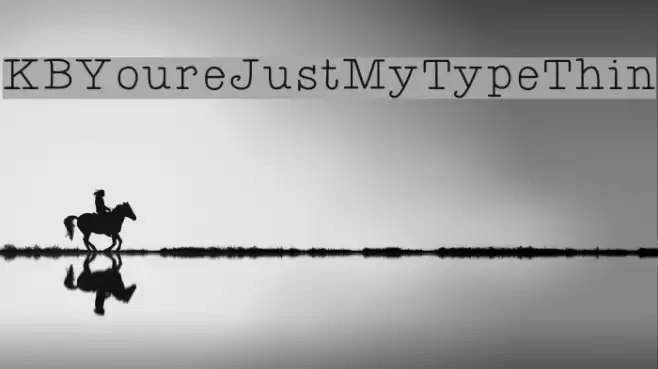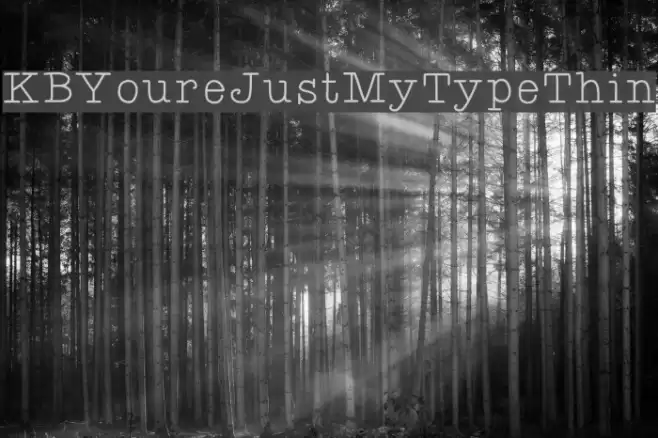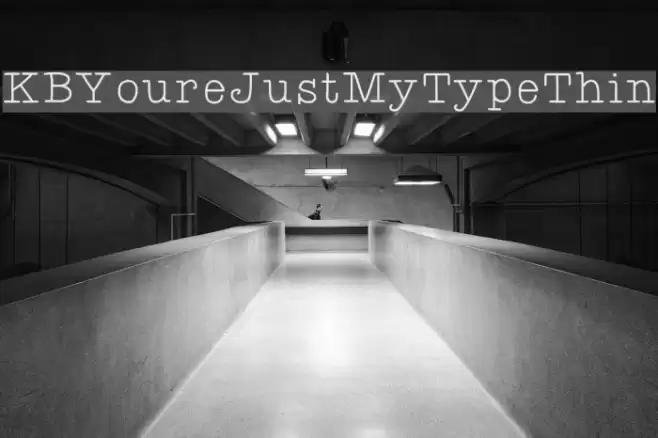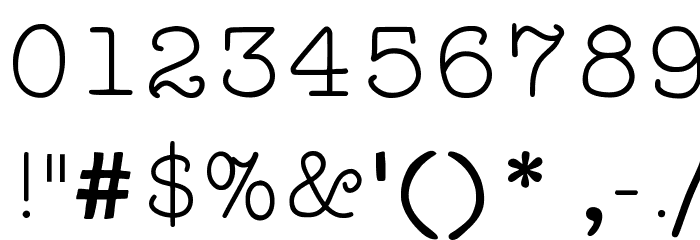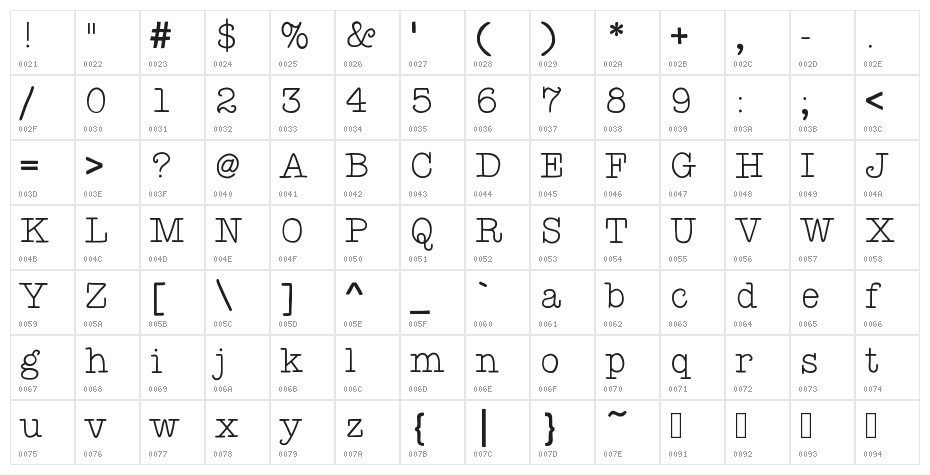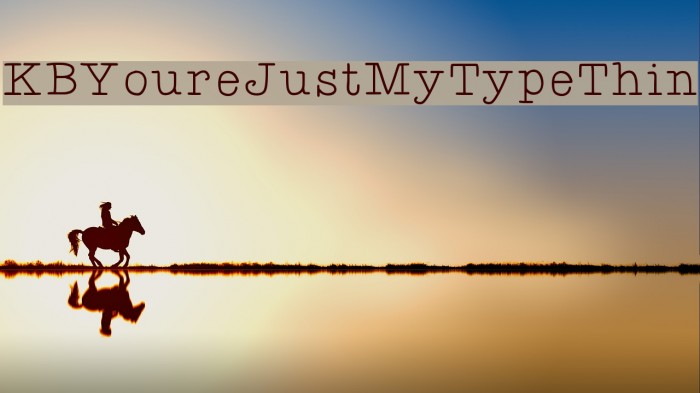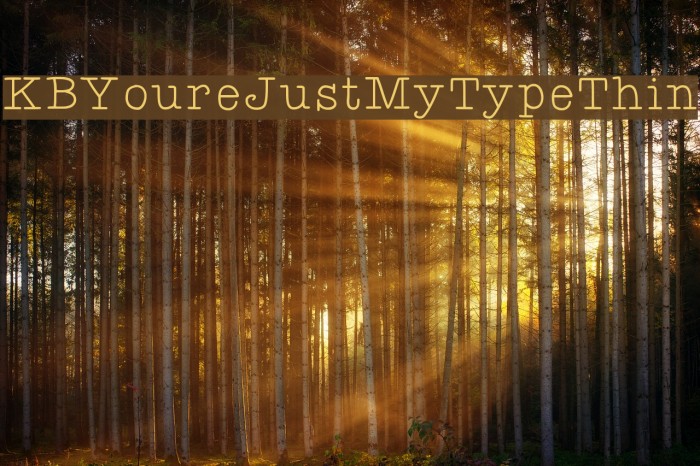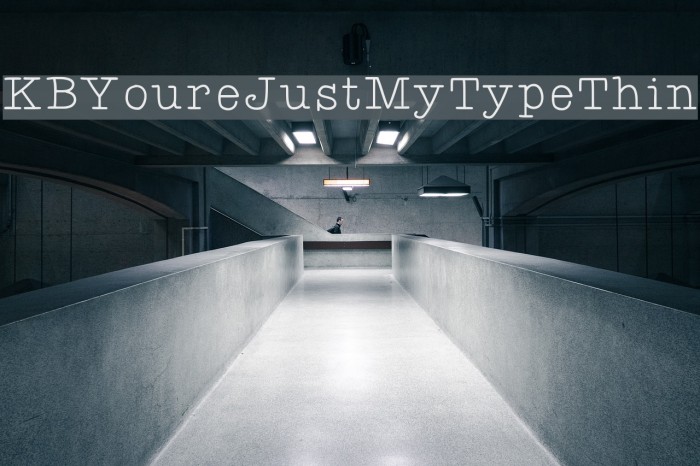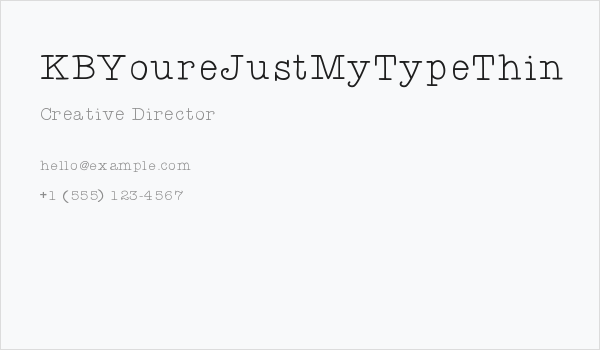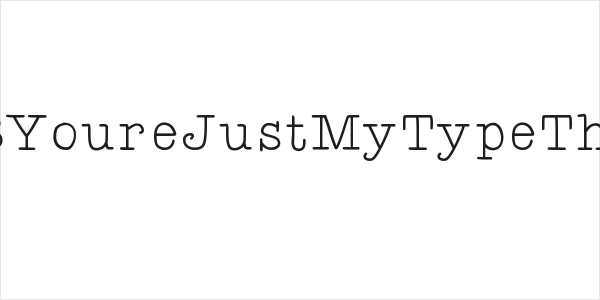
KBYoureJustMyTypeThin Font
KBYoureJustMyTypeThin Description
This font features a clean, monospaced design with a modern aesthetic. Each character is evenly spaced, providing a uniform appearance that enhances readability. The strokes are thin and consistent, giving the font a light and airy feel. The uppercase and lowercase letters maintain a balanced proportion, while the numerals and special characters are clearly defined, making them suitable for various applications. The overall style is minimalistic yet functional, ideal for projects that require clarity and precision.
A clean, monospaced font with thin strokes and a modern aesthetic from Uncategorized fonts.
- Proposed Projects: Ideal for coding environments, technical documentation, and minimalist design projects.
- Use Case: Coding, Technical documentation, Minimalist designs